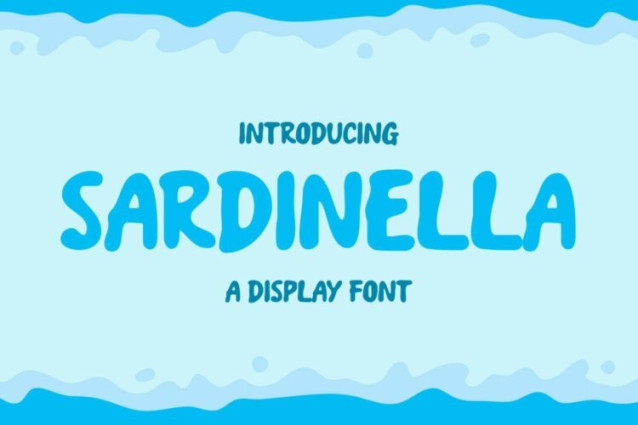
Sardinella Font
Sardinella Font is a simple and modern display font suitable for quotes, logos, headings, titles, and many more. Use it on any of your creative projects, and your designs will become outstanding!